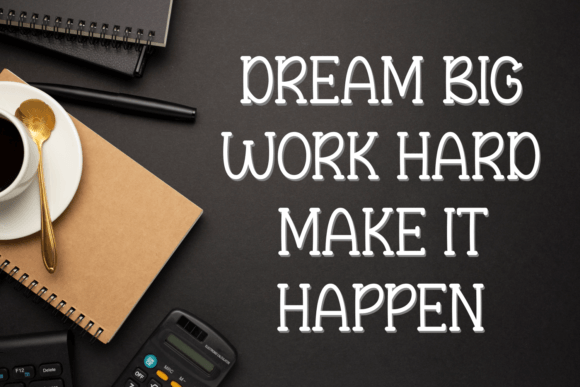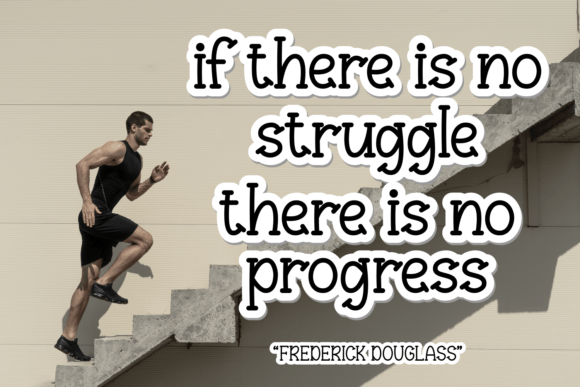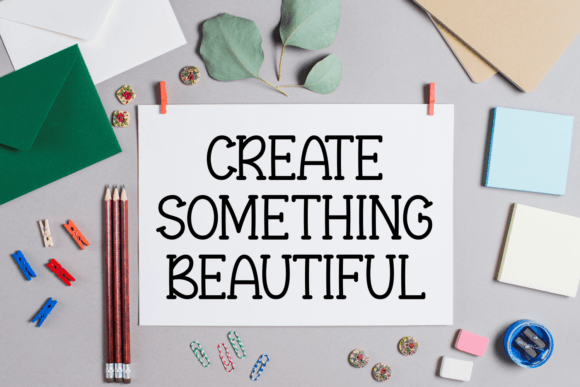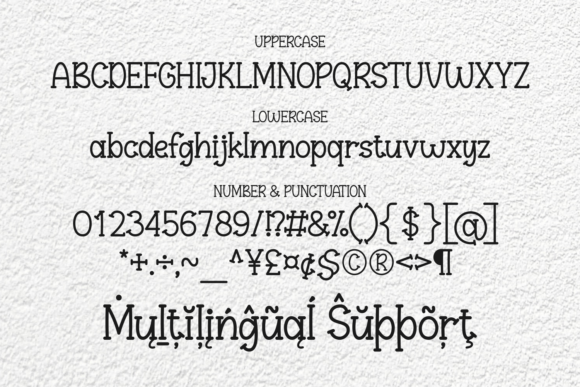
Make It Better Font
Add Playful Charm with Make It Better Font
The Make It Better font is a playful and cute handwritten script designed to bring fun and personality to your creative projects. Its natural and quirky style makes it perfect for designers looking to add a fresh, handcrafted vibe. Whether you’re working on greeting cards, headlines, stickers, posters, or more, Make It Better adds charm and uniqueness.
Perfect for Cards, Headlines, and Stickers
The Make It Better font fits beautifully in a variety of design contexts. Use it for handmade cards, social media graphics, product packaging, posters, and other creative projects. Its whimsical style adds warmth and approachability, making your designs engaging and memorable.
A Handwritten Script Full of Personality
Each character in the Make It Better font is crafted with care to balance artistic flair and readability. The font’s quirky strokes and lively flow give your text a fun, casual feel that stands out without sacrificing clarity.
Stylish and Readable Typography
Despite its playful style, the Make It Better font maintains excellent readability across various sizes. Whether used for large headlines or smaller text accents, it ensures your message is clear while maintaining a unique personality.
Make Your Designs Stand Out with Fun
Typography is key in expressing your brand’s voice, and Make It Better adds a playful and cute touch. If you want a handwritten script font that combines quirkiness with legibility, download the Make It Better font today and bring fresh energy to your creative projects.